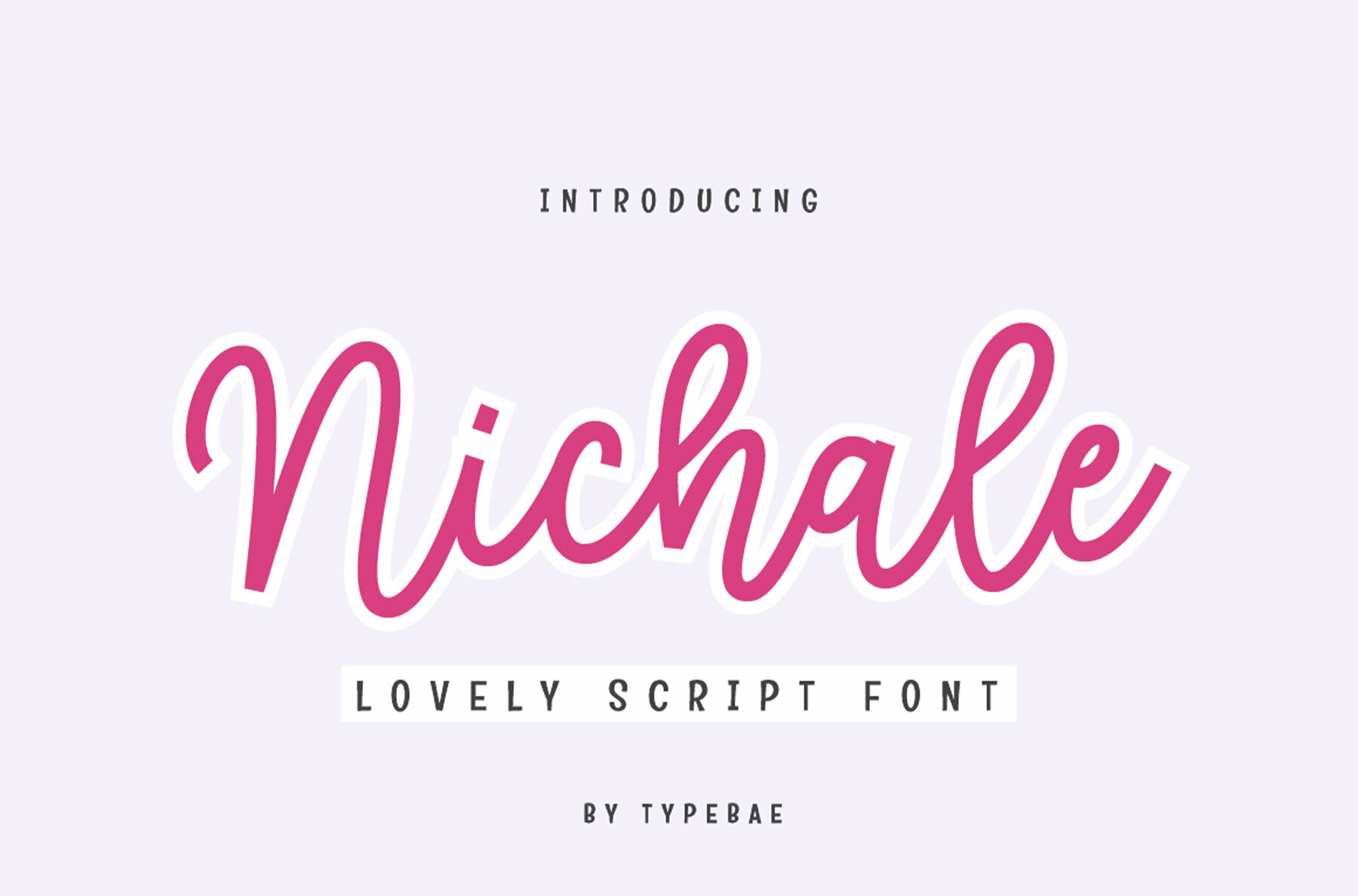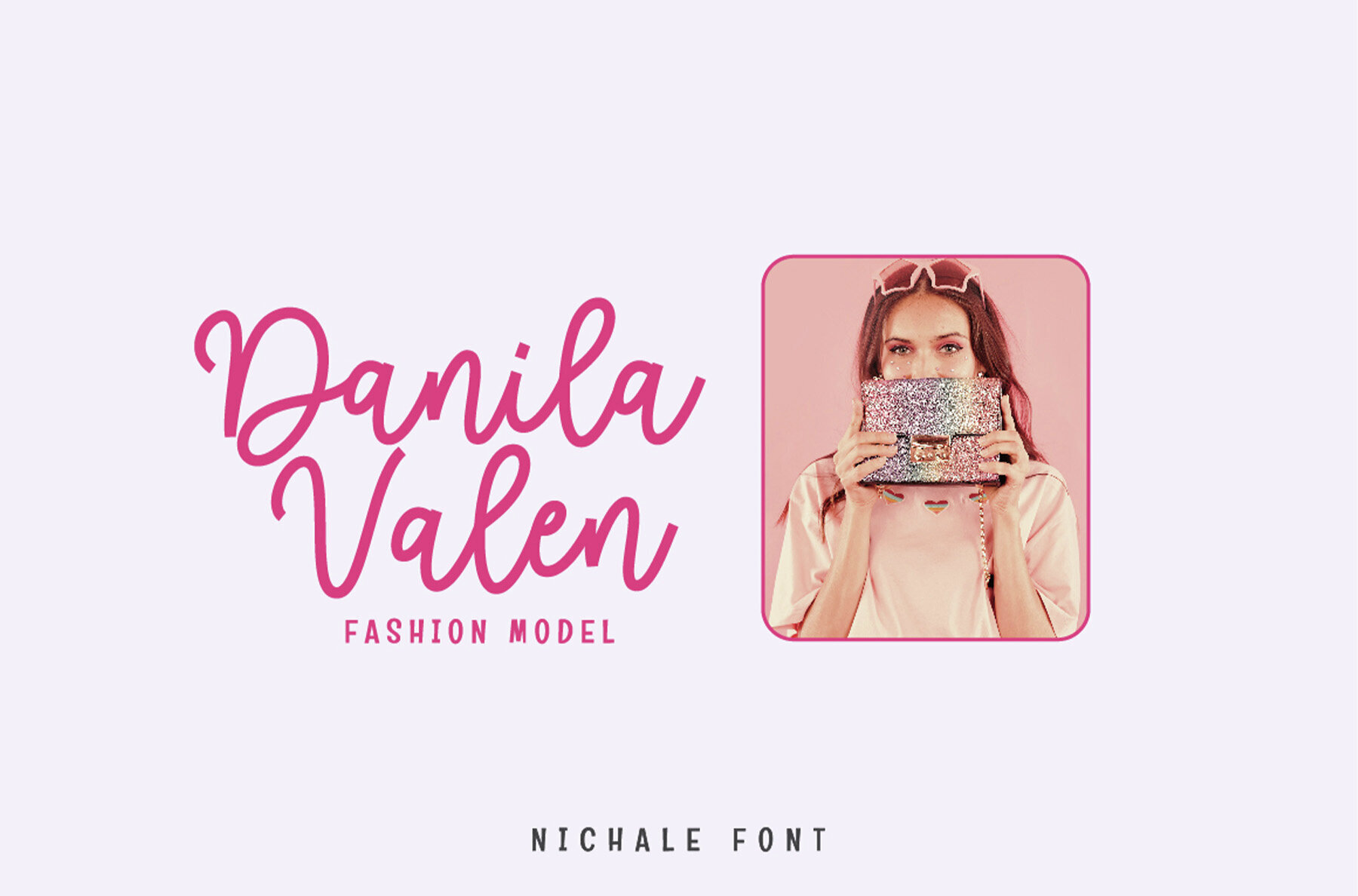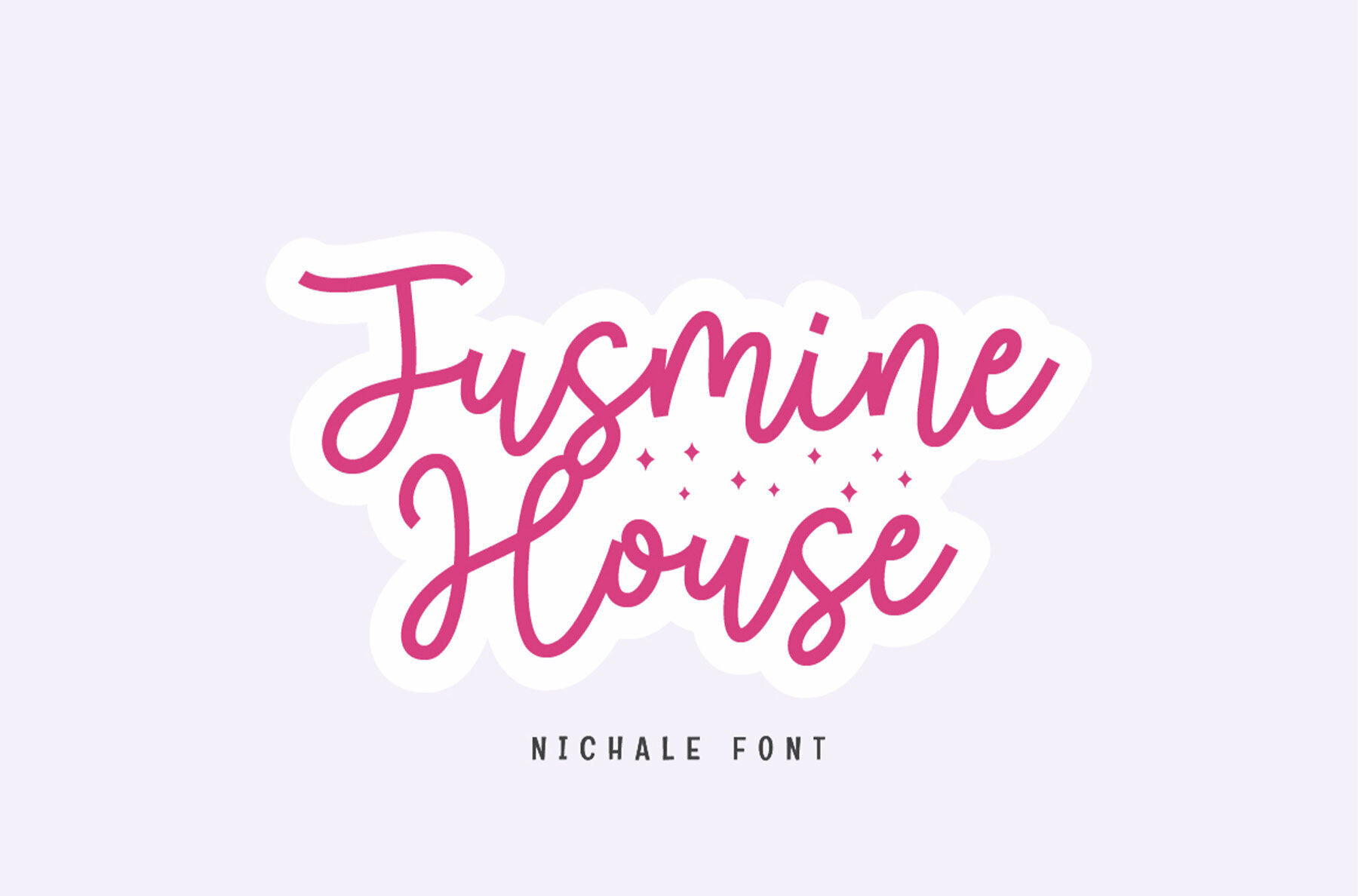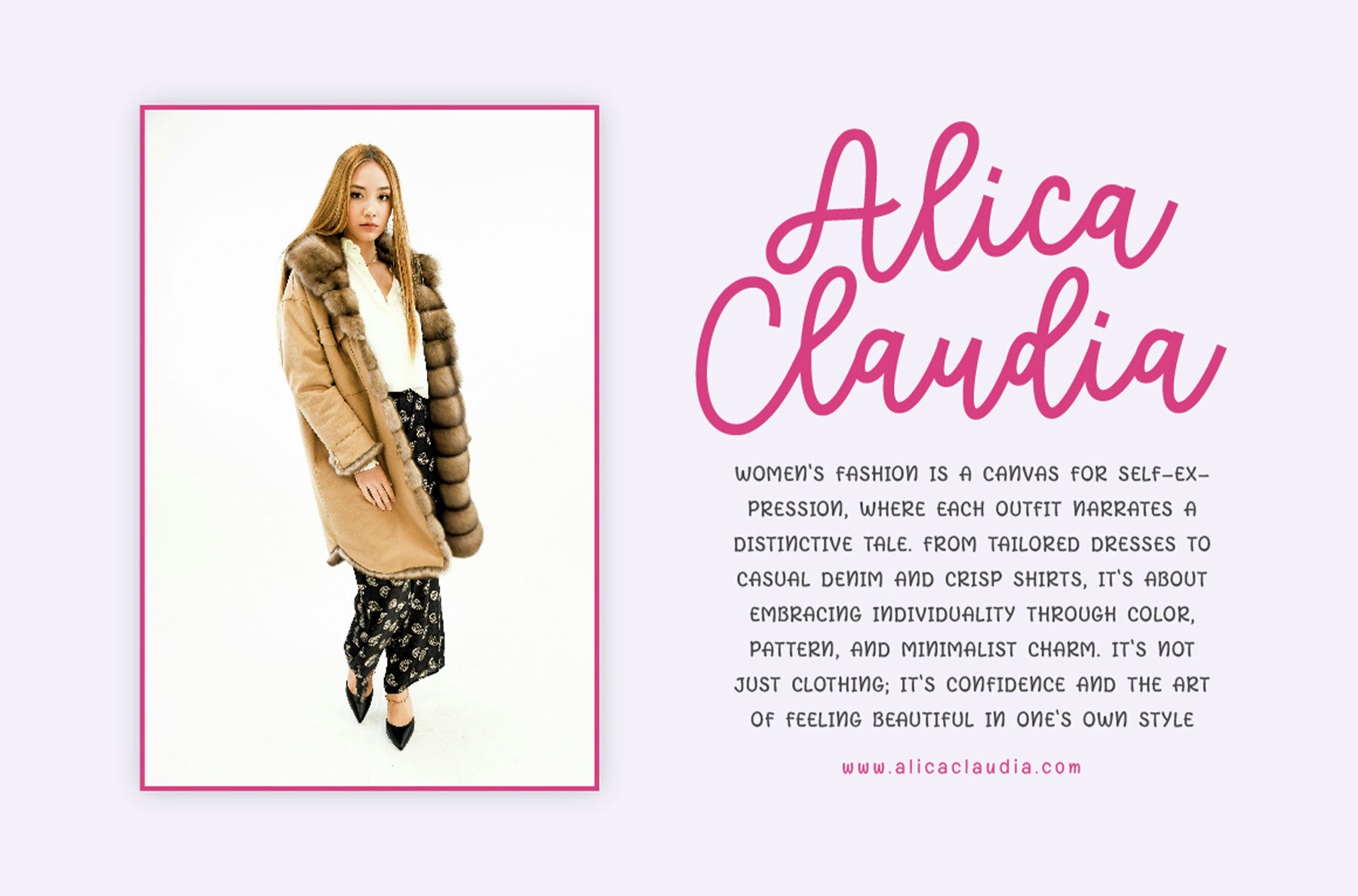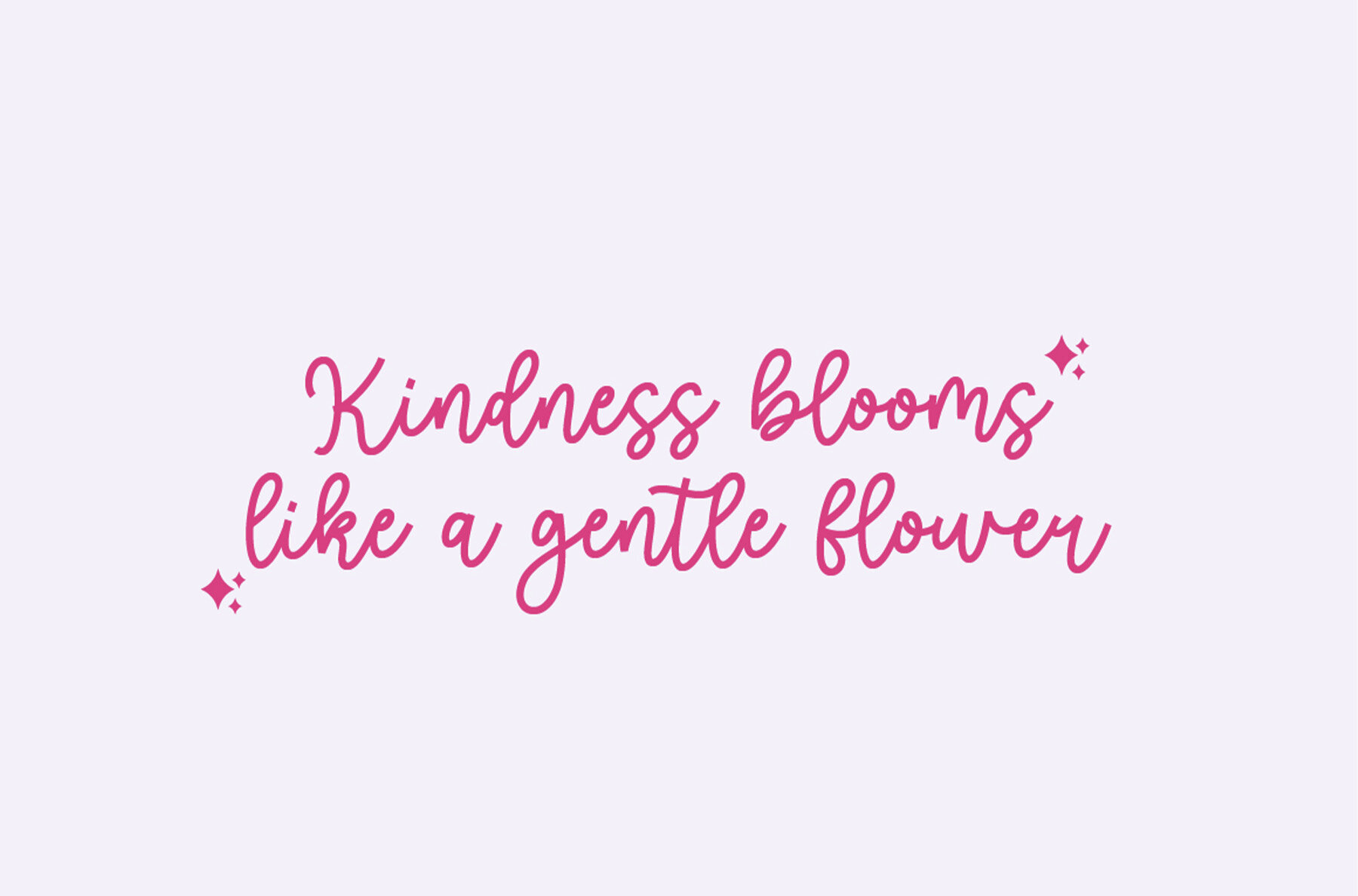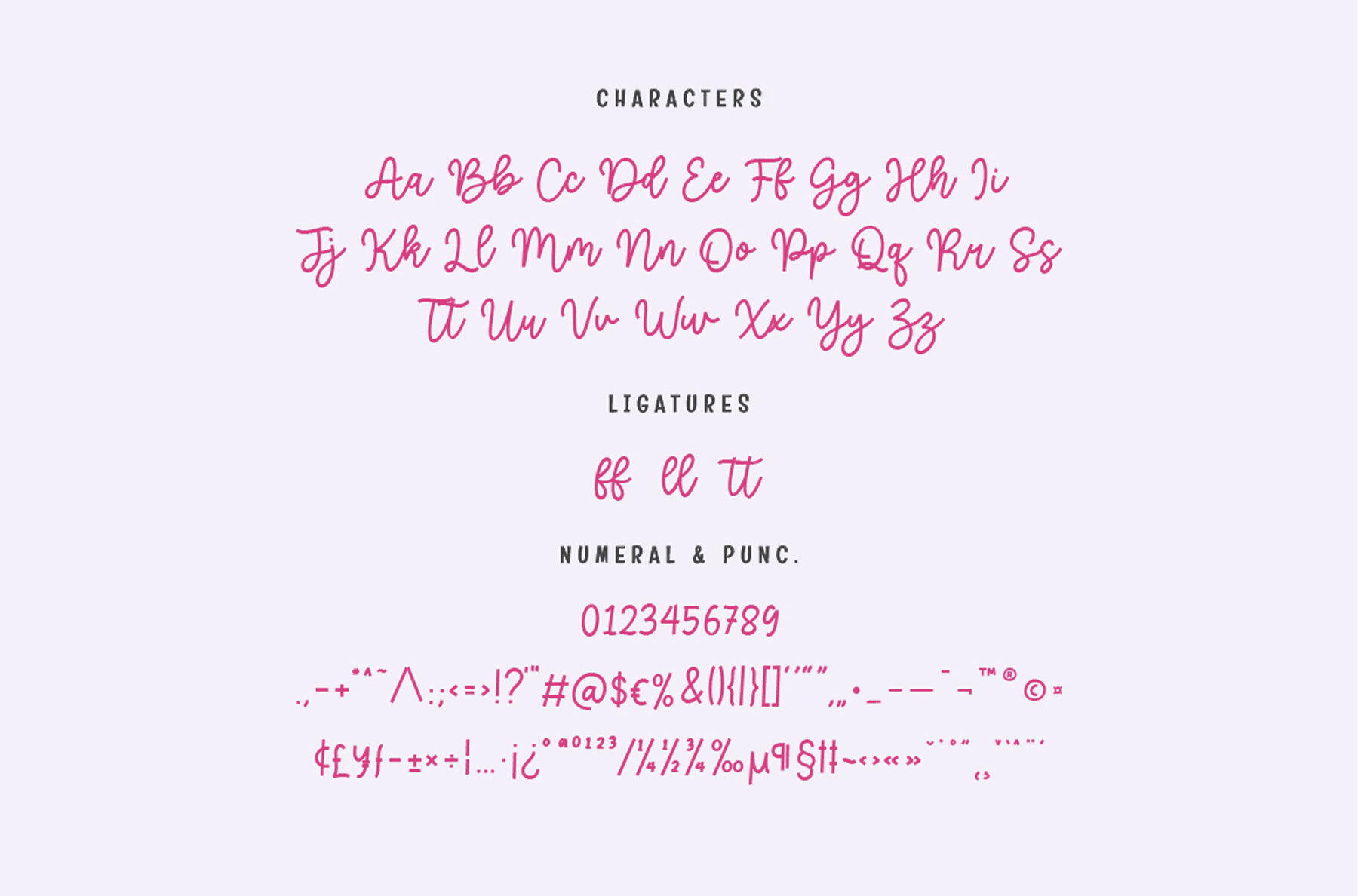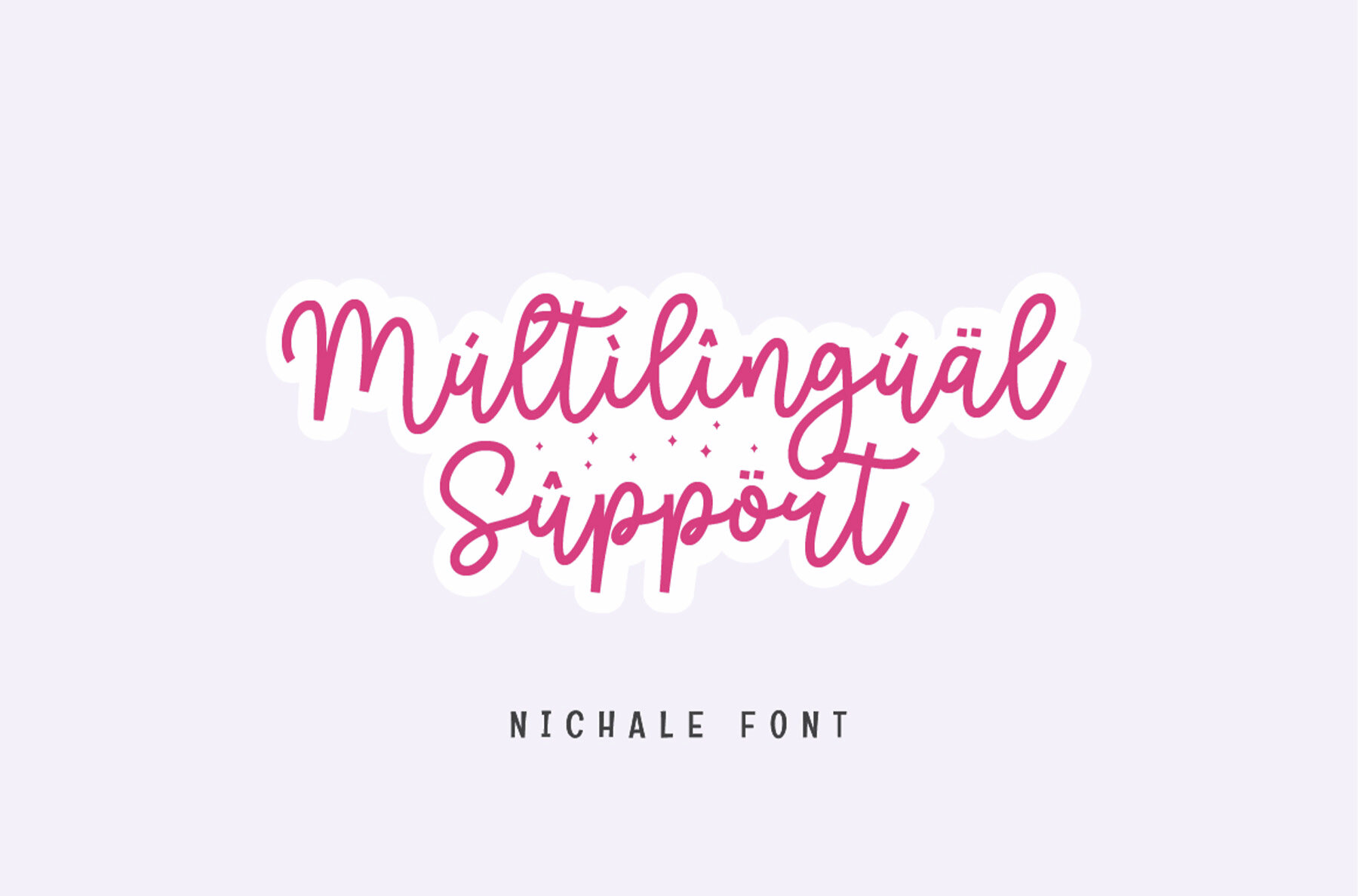
Nichale Font
Nichale
Nichale is a graceful handwritten script font designed for projects that call for a gentle and refined touch. Its smooth, flowing strokes provide a warm and inviting presence, enhancing everything from personal branding to event invitations. Nichale's charming style works well in creative work, packaging, greeting cards, and editorial layouts, bringing a sense of craftsmanship to each letter. Nichale's versatile design allows it to blend seamlessly into branding assets or decorative headlines. This font balances personality with readability, making it a top choice for designers who value clarity paired with elegance.Nichale Handwritten Script Font